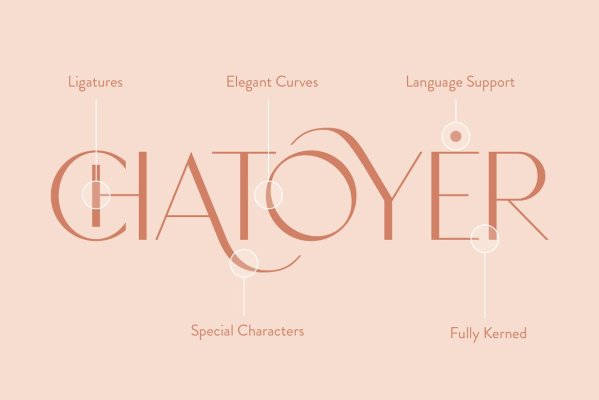
Chatoyer, a modern luxurious typeface
Download Chatoyer font is a modern luxurious typeface font created and published by Sweetest Goods. Featuring a ton of beautiful elegant swashes, special characters, multilingual support and 4 free logo templates, Chatoyer is a a seductive, feminine appealing that works great branding projects, logo design, clothing prints, product packaging, magazine headers, or simply as … Continue reading Chatoyer, a modern luxurious typeface